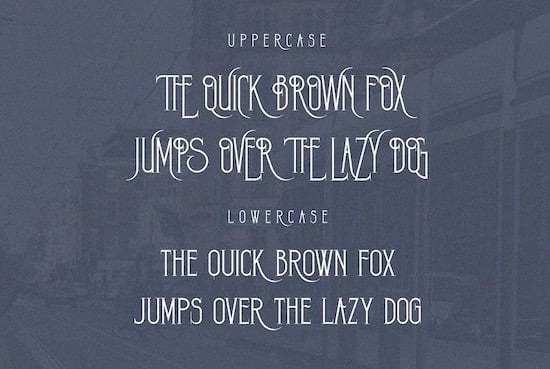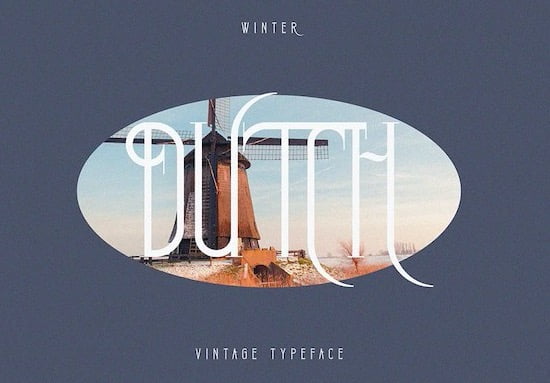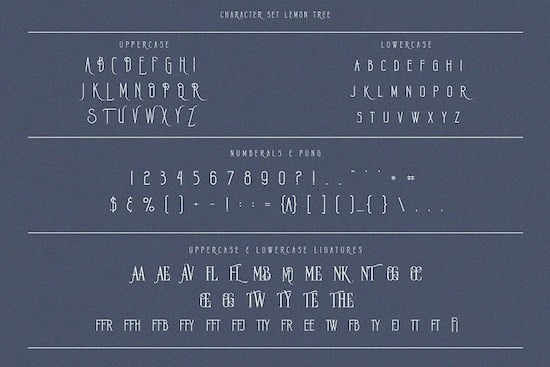
Lemon Tree Font
Lemon Tree is a classy and classic serif font that includes a condensed and decorative feel. It was published by JumboDesign and it’s great for your new logo or branding project.